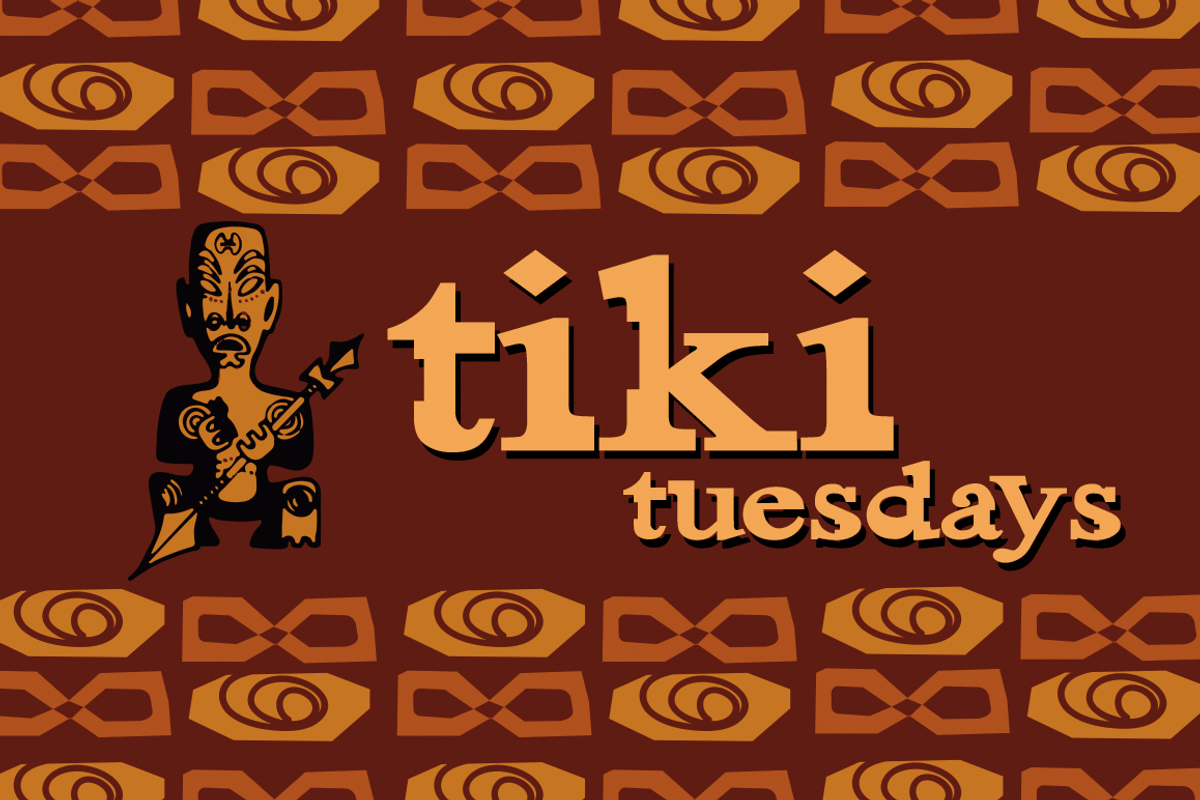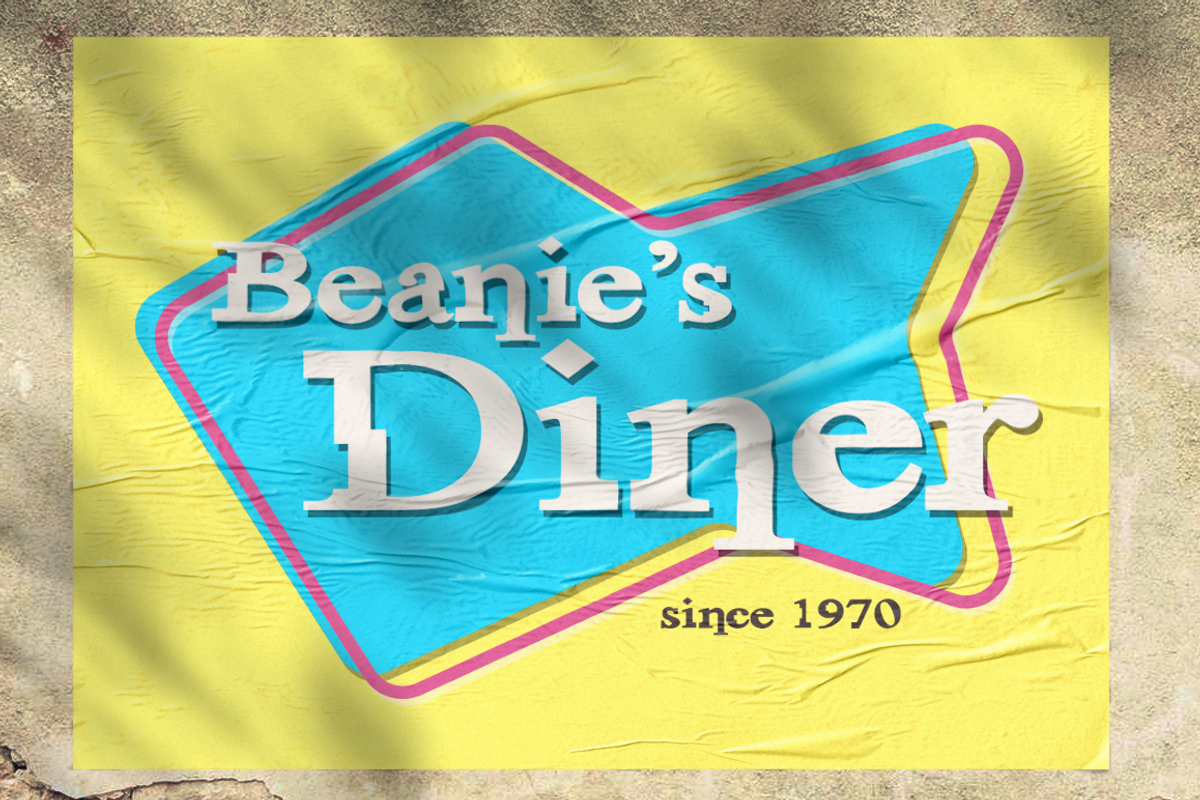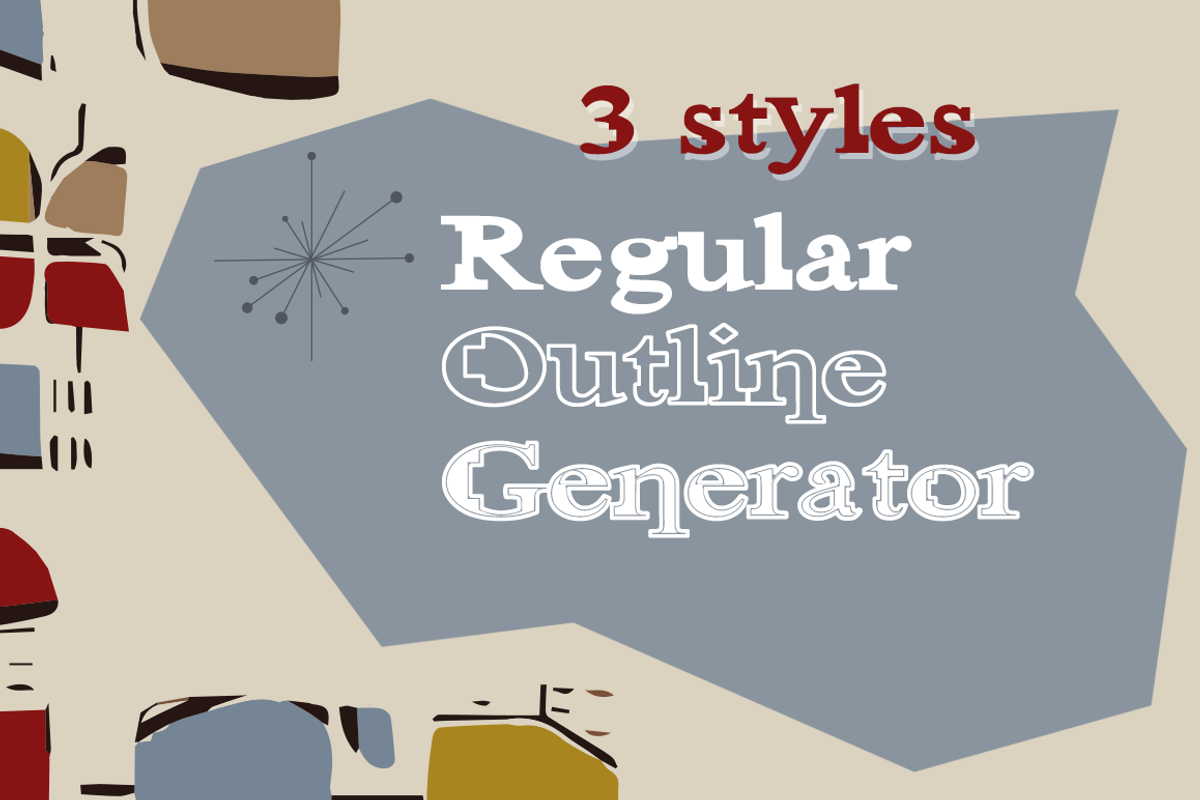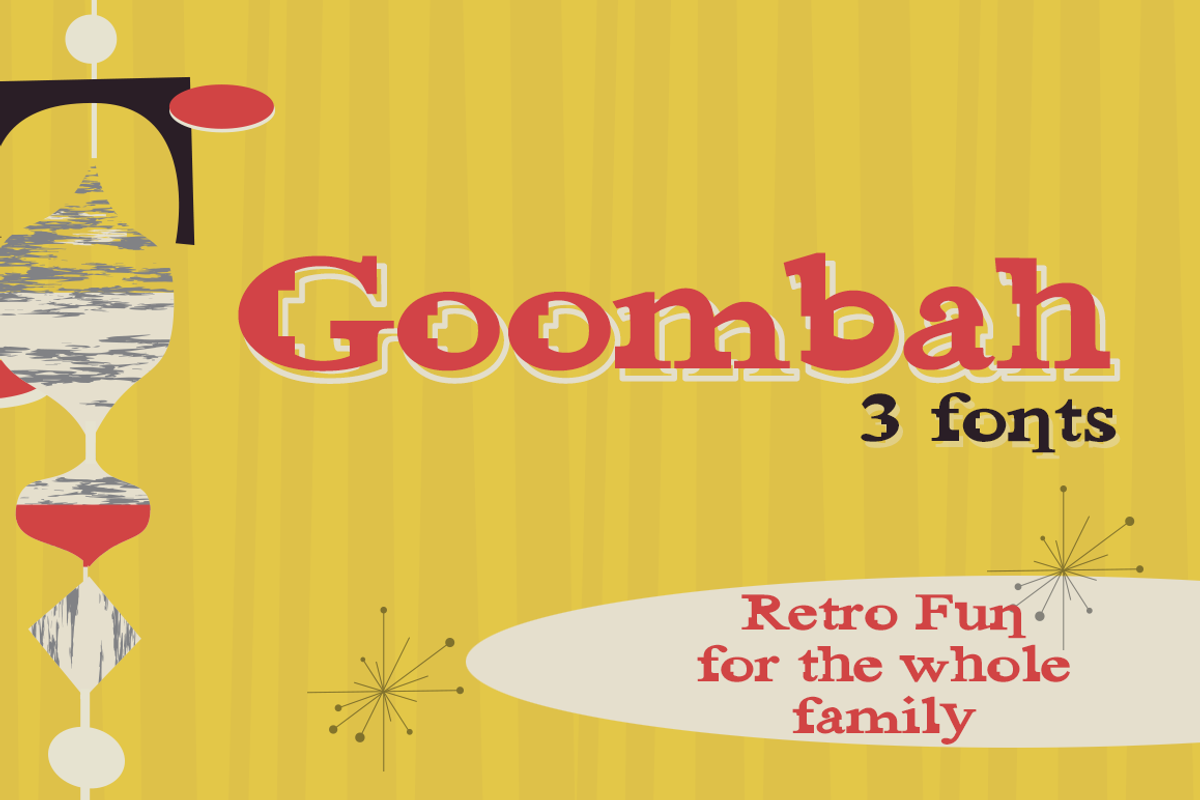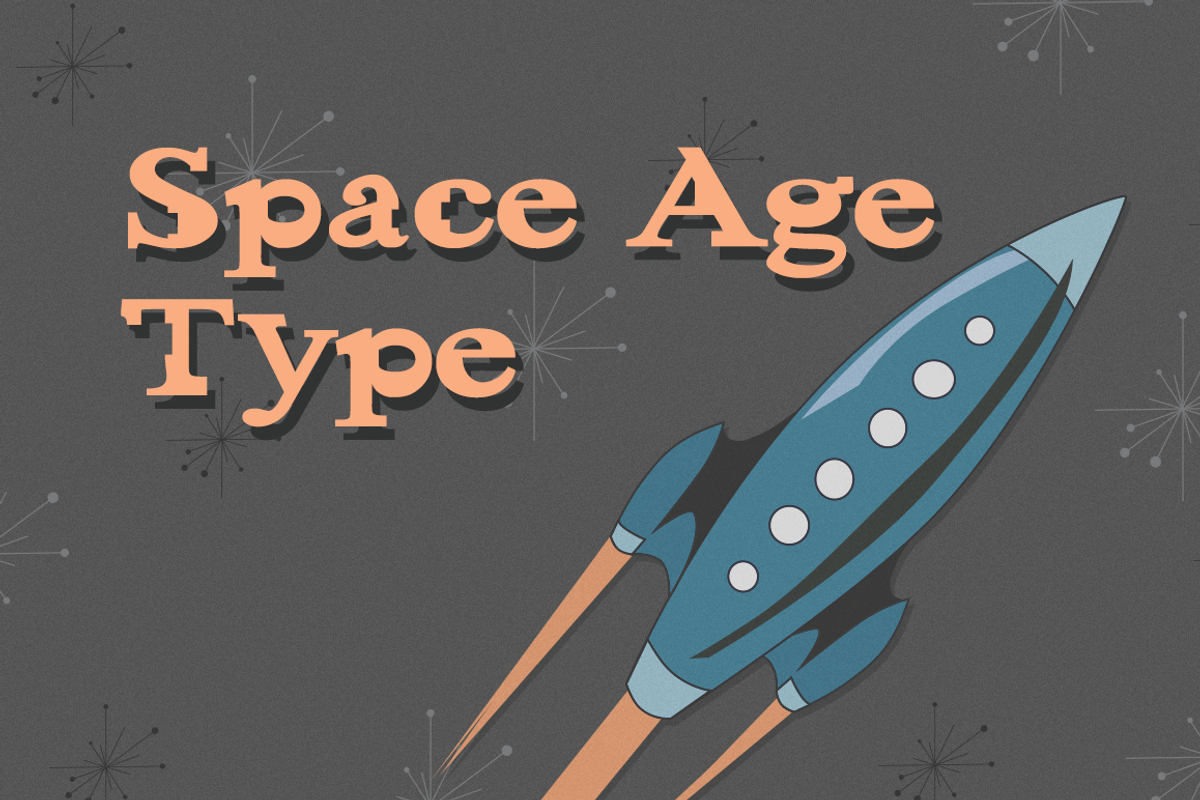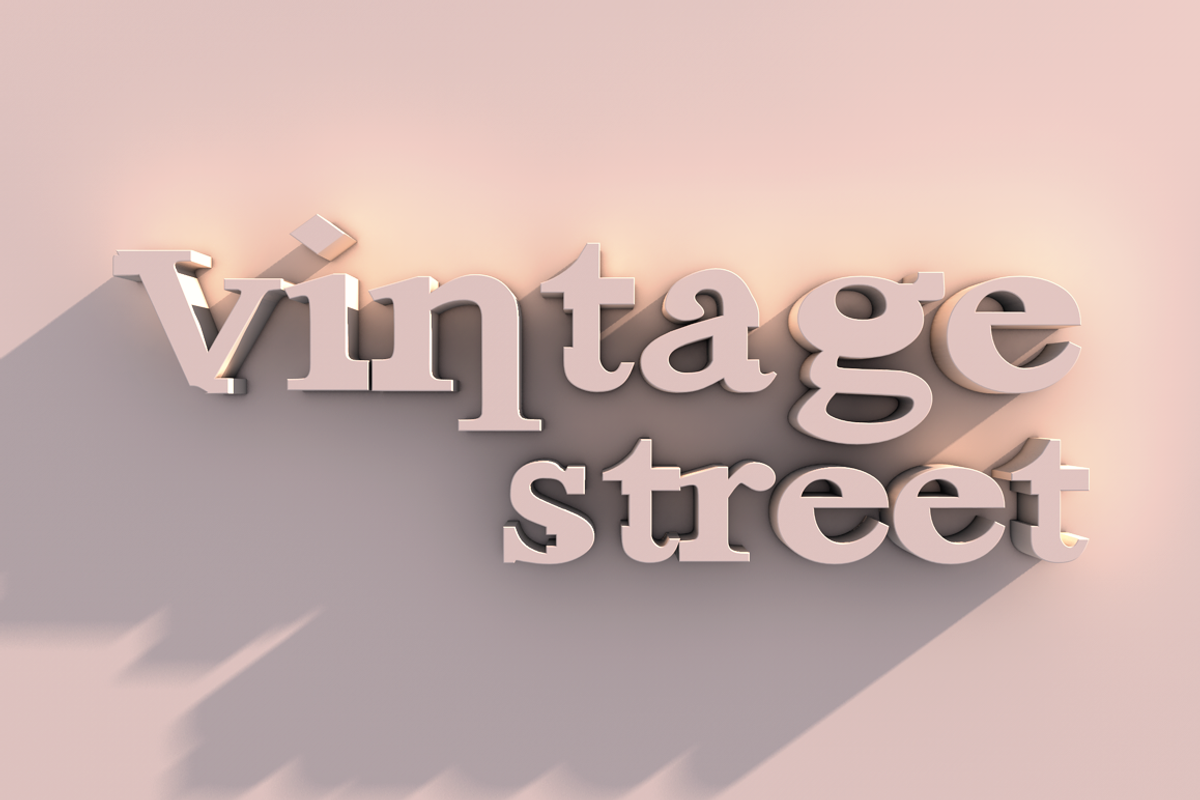
Goombah
Goombah is a cosmic journey to those cheesy cartoons of the early 60’s. It has retro roots with a modern flare. It comes in 3 styles: regular, outline and generator (which has a filled outline with a space between). Mix and stack them to get all kinds of groovy effects. It's almost as if Korla Pandit himself is playing Goombah's theme song. Take me to your leader! These fonts have have a full character set with numbers, punctuation and accents.